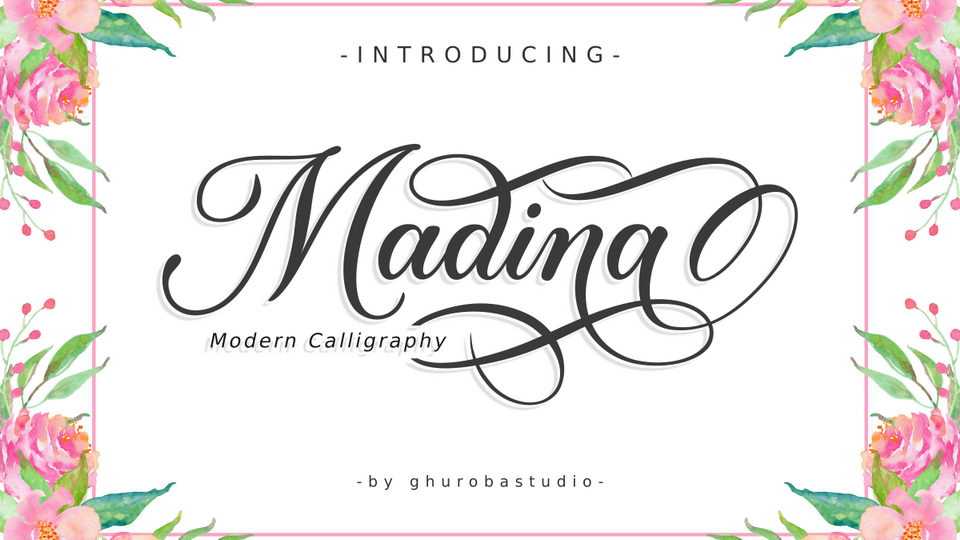
Download Madina, a beautiful modern calligraphy script that feels both magical and elegant. Madina looks stunning on wedding invitations, thank you cards, quotes, greeting cards, logos, business cards and every other design which needs a handwritten touch.
Designer: Ghuroba Studio